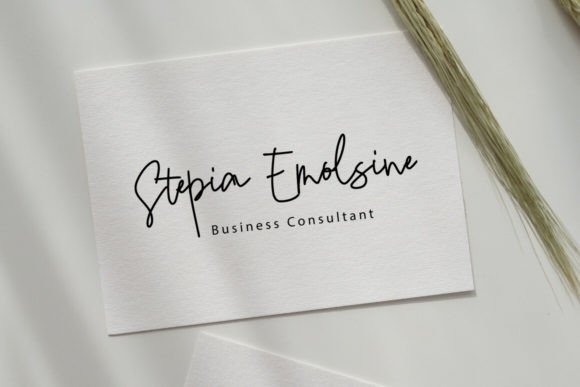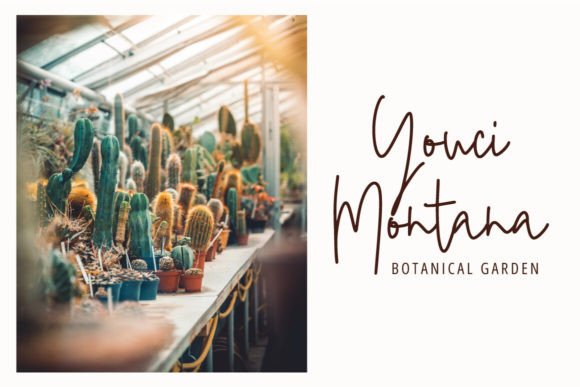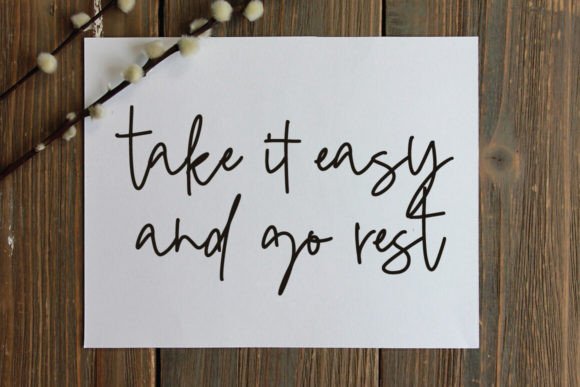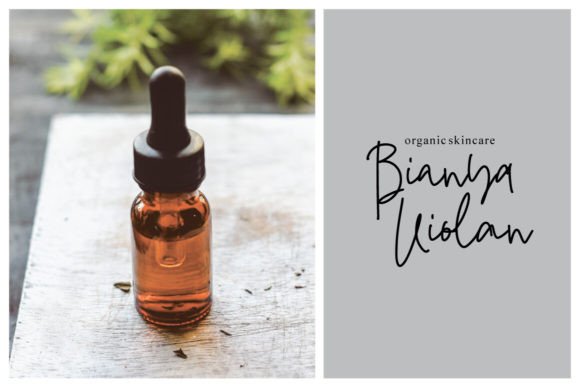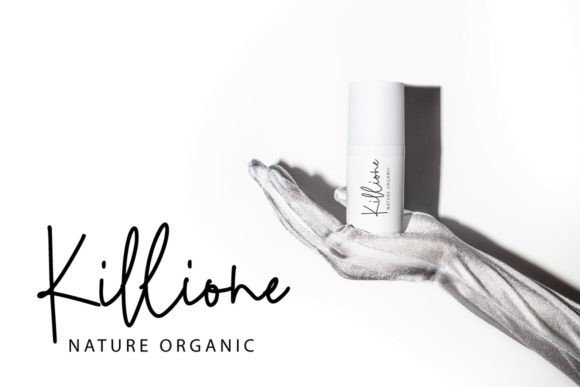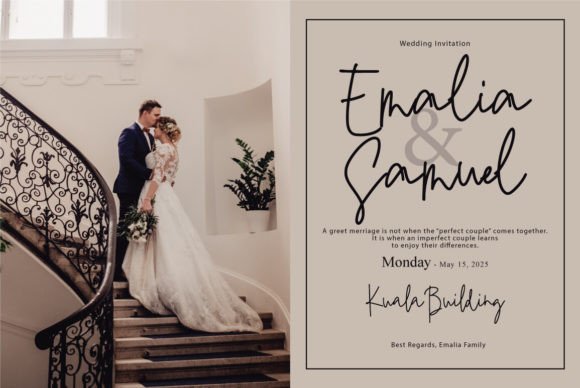
Unleashing the Artistry: Discovering the Beauty of Histrea Font
Have you ever stumbled upon a font that made you pause, take a deep breath, and say, “Ah, this is it”? That moment of serendipity is what designers live for – and Histrea Font is one such discovery. With its handmade calligraphy style and decorative characters, this font is a masterpiece that will elevate your designs to the next level.
Designed for those who crave uniqueness and sophistication, Histrea Font is a versatile font that can be used for various projects, from invitations and greeting cards to branding materials, business cards, and quotes. Its dancing baseline adds a touch of whimsy, making it a valuable asset for designers who want to create visually stunning pieces.
Histrea Font Key Features
- Unique Characteristics: The font features a unique, modern script design with a mix of cursive and sans-serif elements, giving it a distinctive and eye-catching appearance.
Review of Histrea Font
Overall, I’m impressed with the Histrea font. It has a unique, elegant style that’s perfect for titles, headings, and any other text where you want to add a touch of sophistication.
Here are some things that work well about the Histrea font: ✨
- Its high x-height makes it easy to read, even at smaller font sizes.
- The font’s rounded edges and gentle curves create a friendly, approachable feel.
- It’s highly legible in both print and digital formats.
- The font supports a wide range of languages, making it a great choice for international projects.
However, there are a few limitations to keep in mind: ⚠️
- The font may not be the best choice for body text, as it’s a bit too ornate and may be difficult to read at smaller font sizes.
- The font’s high x-height can make it feel a bit too “boxy” at larger font sizes.
- It may not be the best choice for projects where you need a lot of customizability, as it’s a relatively simple font.
Overall, I think the Histrea font is a great choice for projects where you want to add a touch of elegance and sophistication. Just be mindful of its limitations, and use it where it shines.
Tips for Getting the Most Out of Histrea Font
Here are some tips to help you get the most out of Histrea Font:
- Experiment with different font sizes and styles to find the perfect look for your design.
- Use Histrea Font in combination with other fonts for a unique and eye-catching effect.
- Take advantage of Histrea Font’s advanced typography features to add depth and interest to your design.
Here are some common use cases for Histrea Font:
- Print materials such as business cards and brochures
Alternatives to Histrea Font for Designers